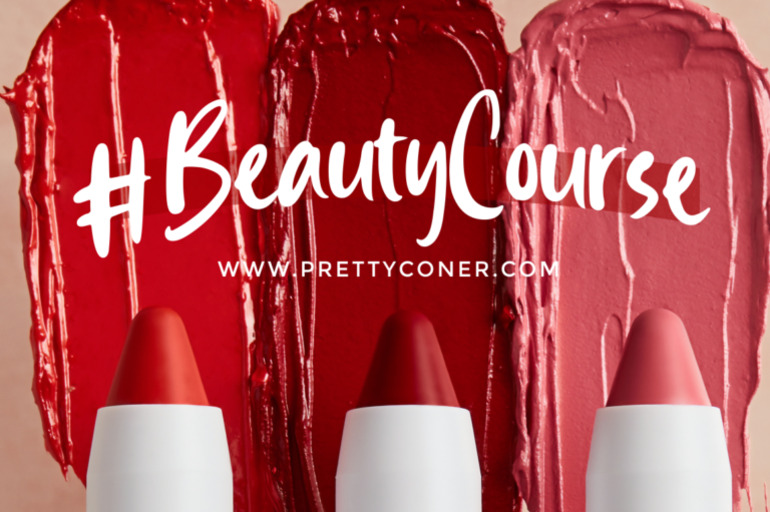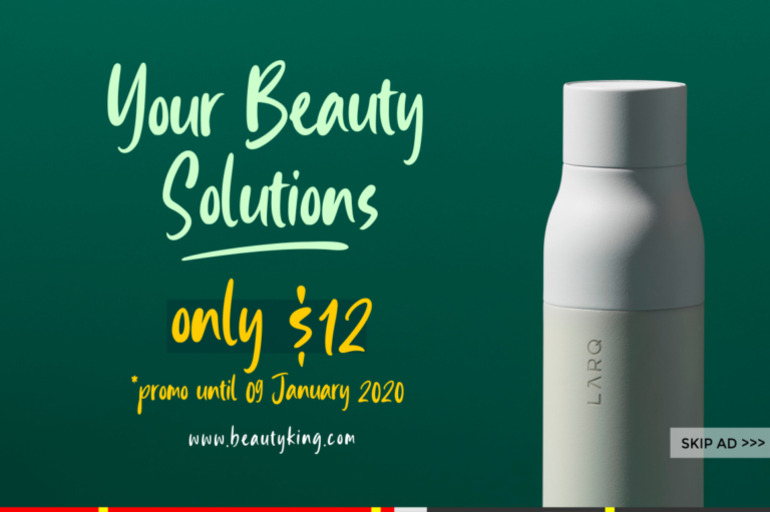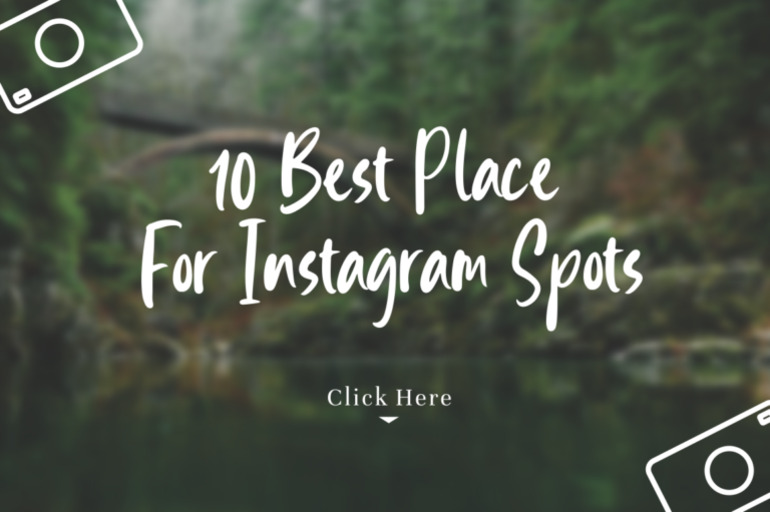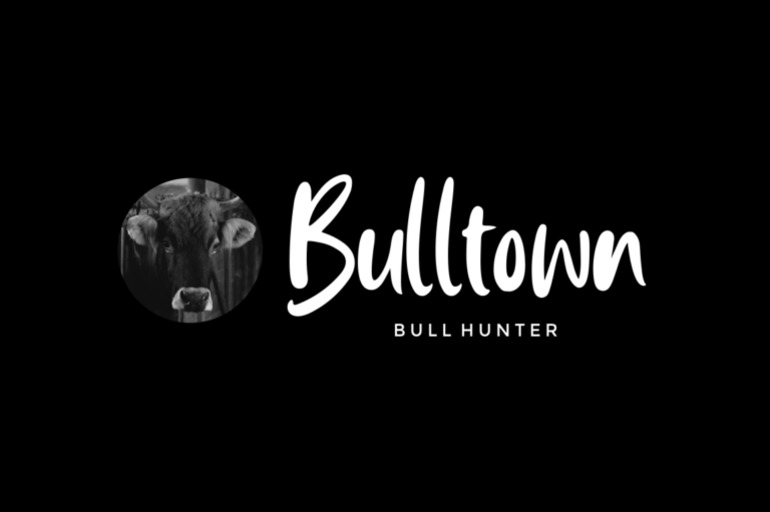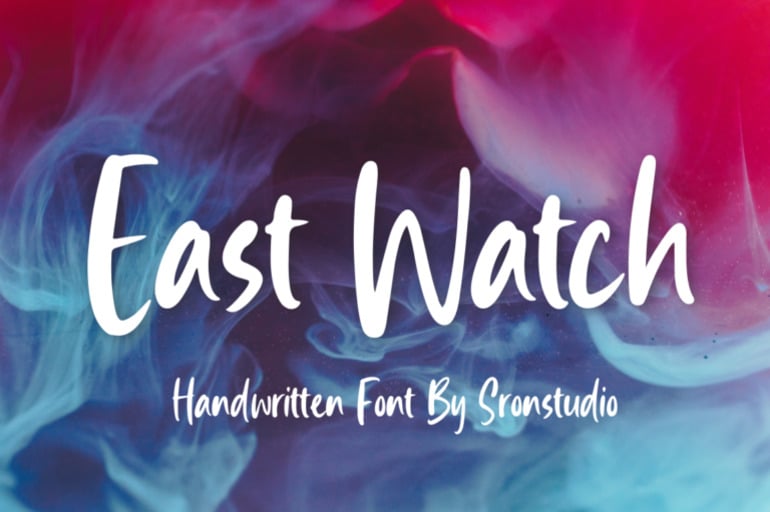
East Watch Font
East Watch is a natural handwritten font with a relaxed, casual style. Its flowing strokes and organic feel make it perfect for projects that require a personal touch, such as logos, social media posts, and invitations. The font’s unique character adds a touch of authenticity and warmth to any design. Whether you’re creating a brand identity or simply adding a handwritten element to your project, East Watch is a versatile and stylish choice.